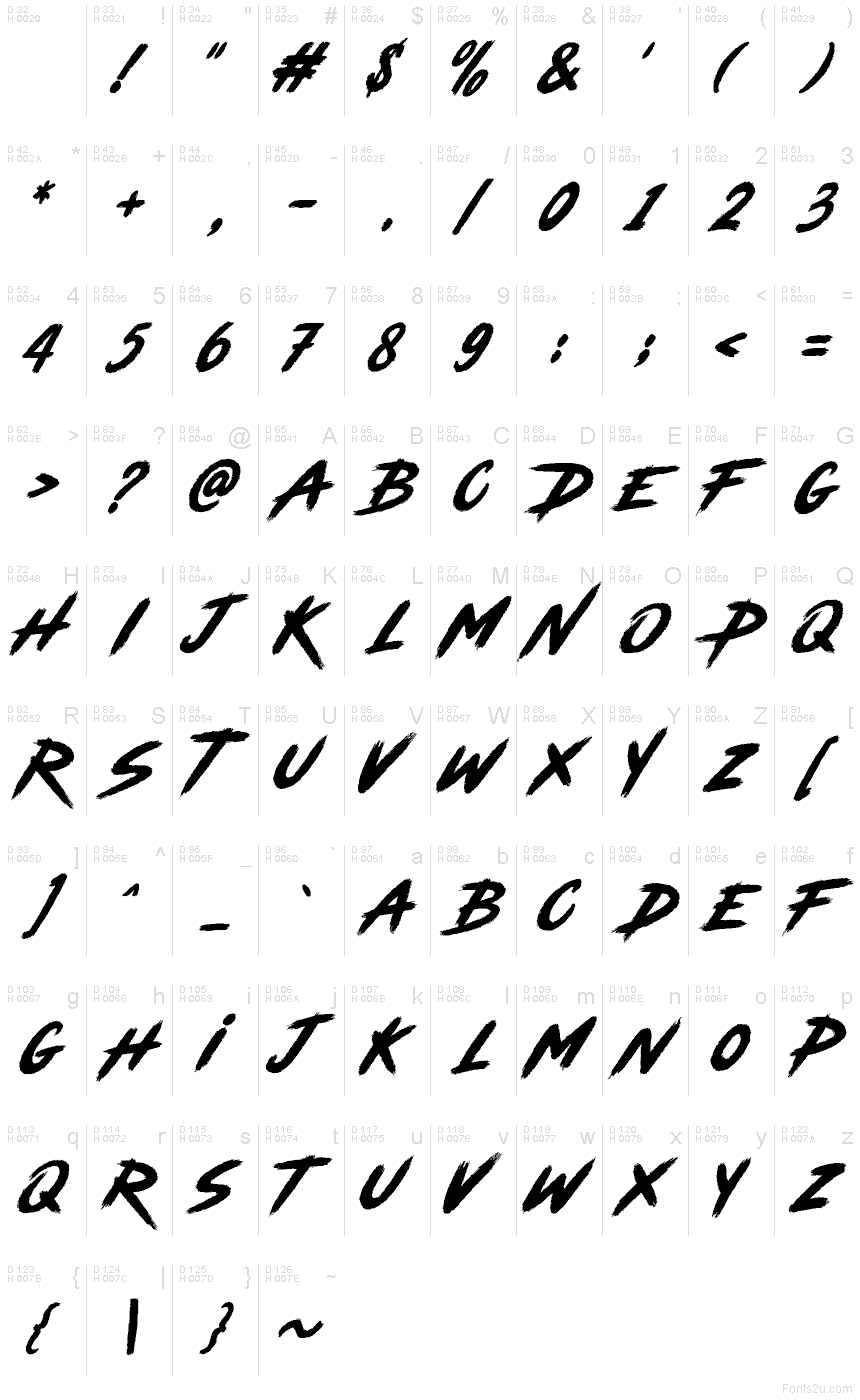
Cyber Brush
Cyber Brush font by HansCo is a modern free brush font that delivers an edgy and energetic impression with every word it forms. The digital influence behind its creation can’t be denied, leading to a current design which is what today’s audiences are looking for. Cyber Brush presents letters with a natural flow with each glyph having its own intriguing touch.
As expected from the name: branding designs within the technology industry would make perfect choices for this font whether they’re for apps, websites that include headers, and logos. All caps titles for magazines and books as well as consumer product packaging/wrapping are also possible options available at hand.